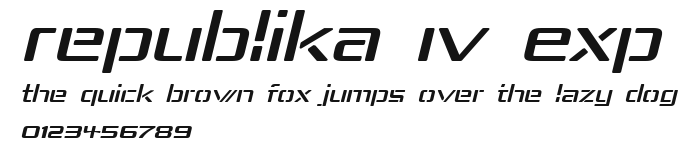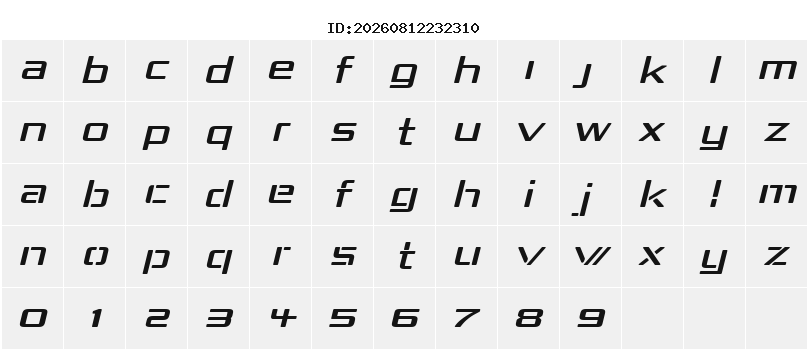
• Font Name: Republika IV Exp
• Full Font Name: Republika IV Exp Italic
• Designer: Apostrophe
About Republika IV Exp.ttf
Republika IV Exp.ttf is a modern, elegant sans-serif font designed for ultimate readability and visual harmony. Perfect for branding, headlines, web design, and print materials.